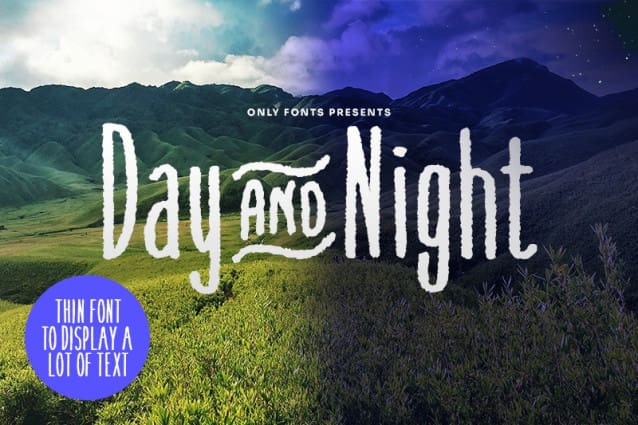
Day And Night Font
Day And Night Font is a handwritten font which looks awesome even on small sizes where the „rough“ effect really has its biggest effect. Its narrow design also saves a ton of space so you don’t have to worry about too much text again. In case you’re more a fan of calming small letters instead of all-caps we’ve got you covered! The font also has a narrow and yet authentic handwritten lowercase.